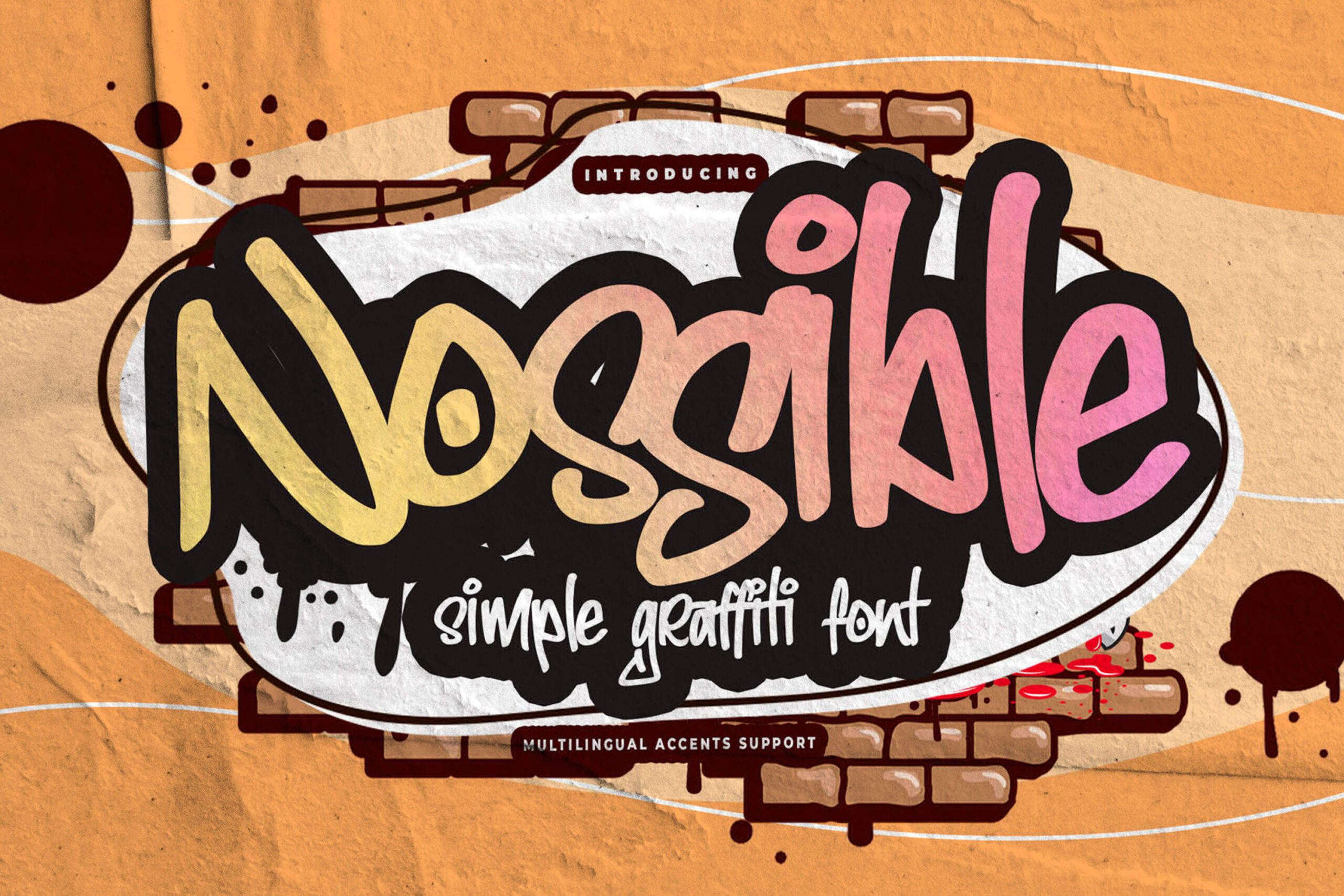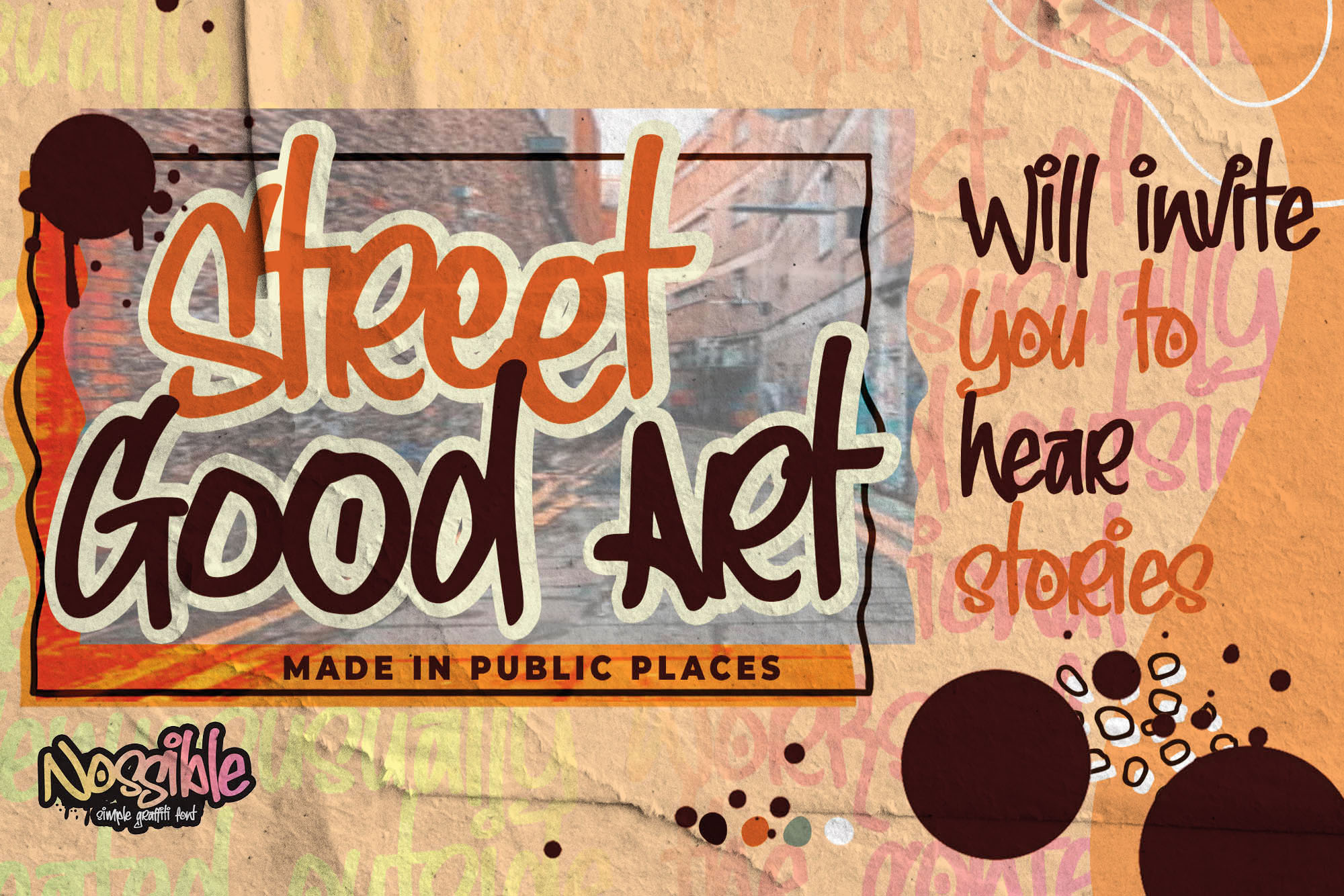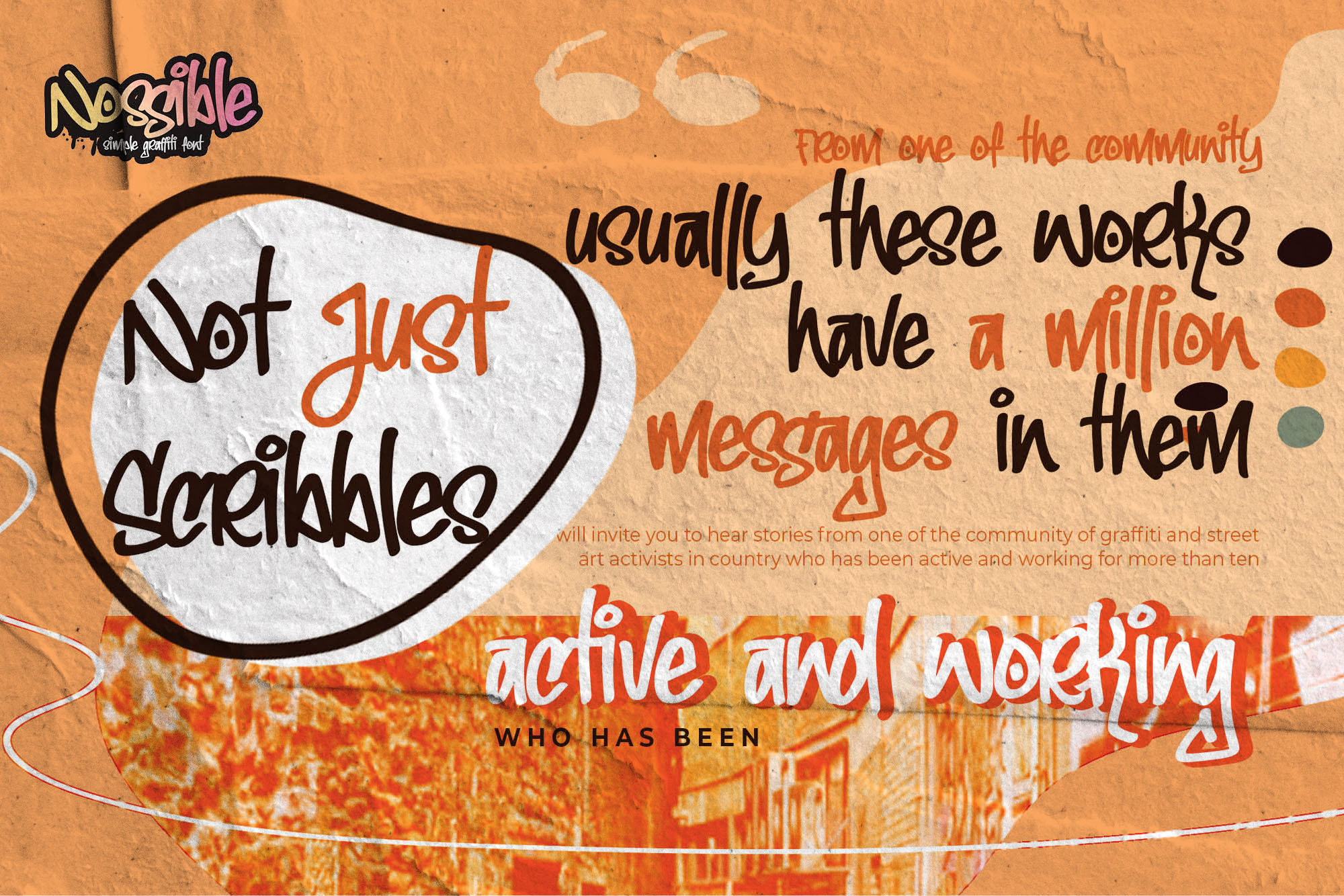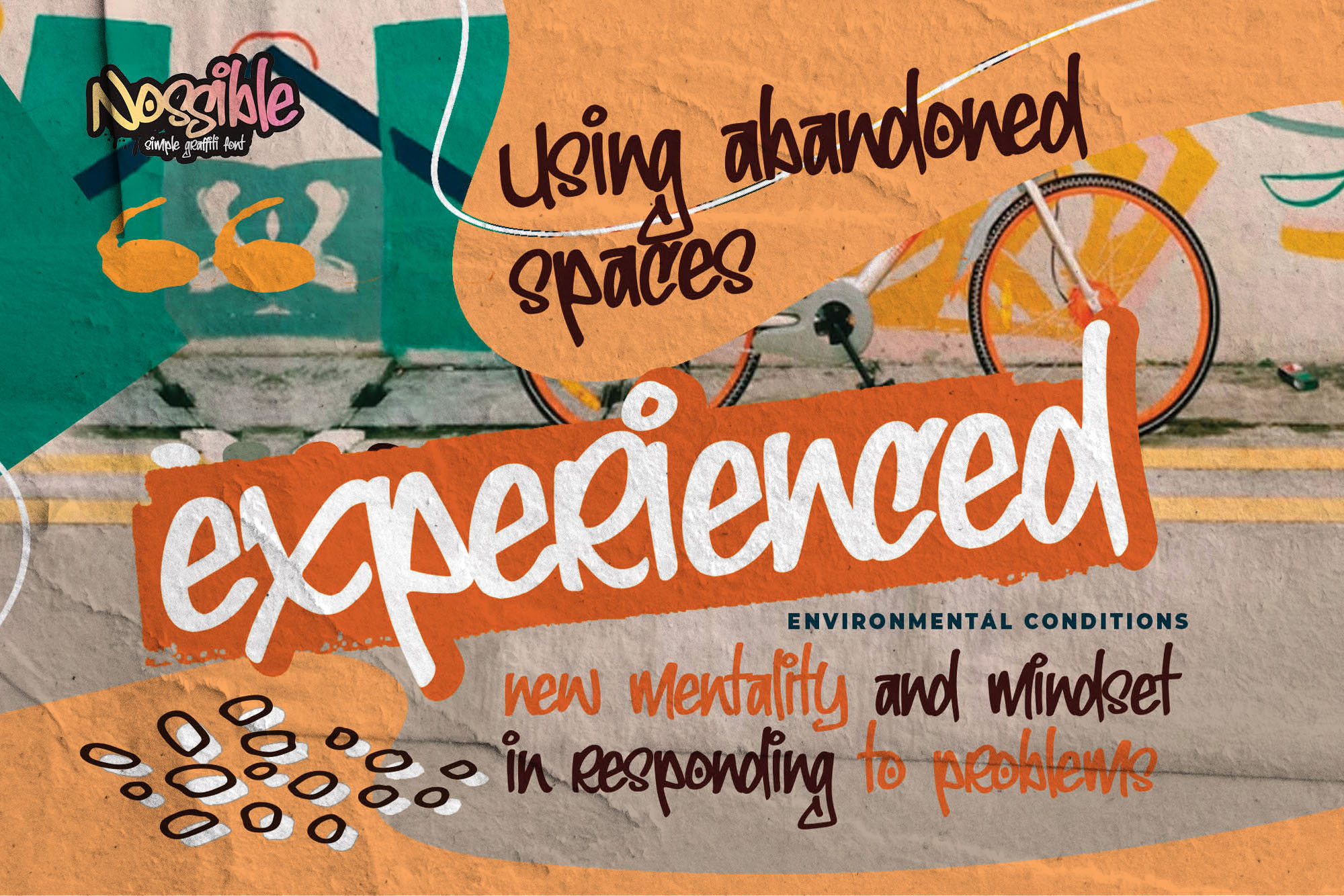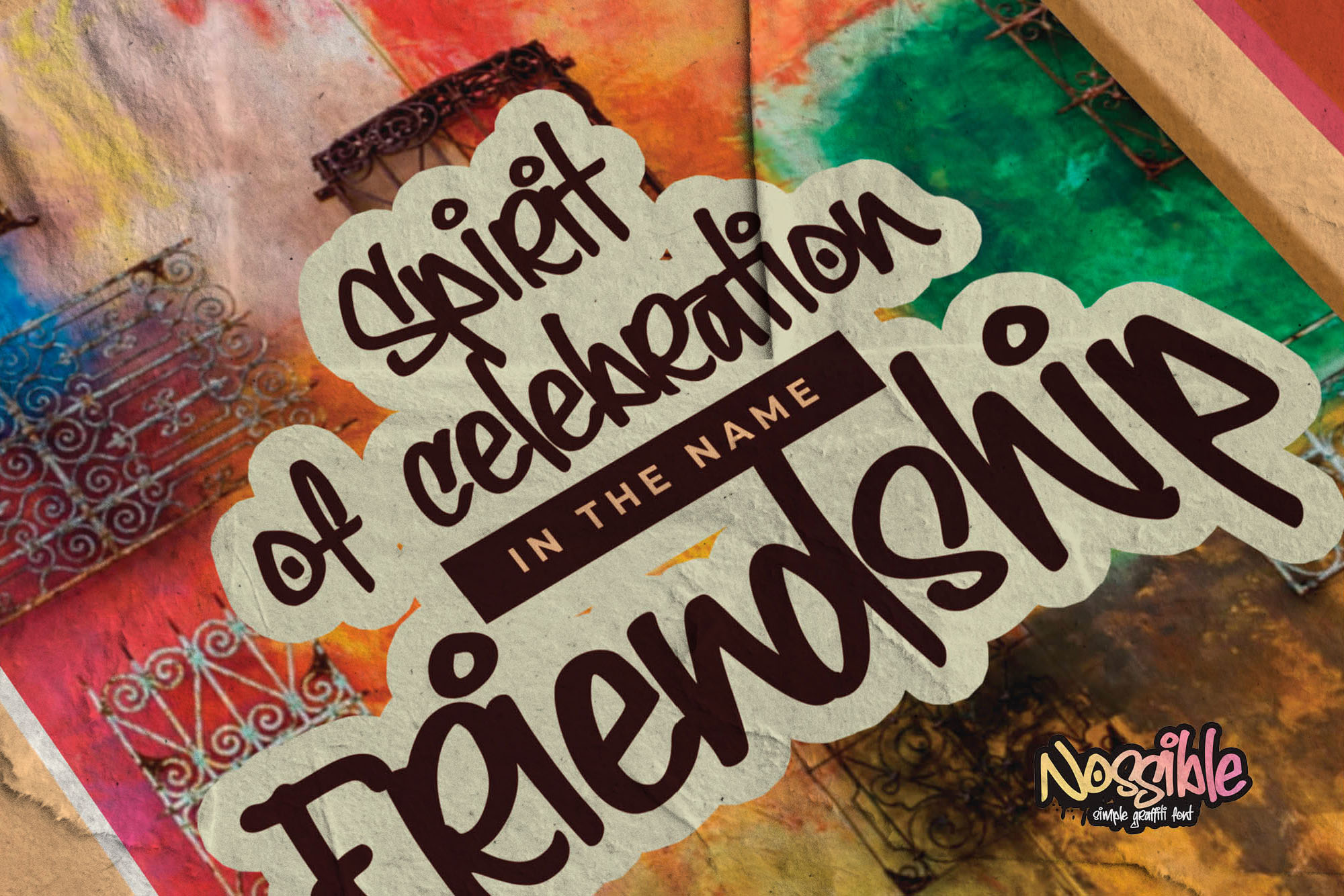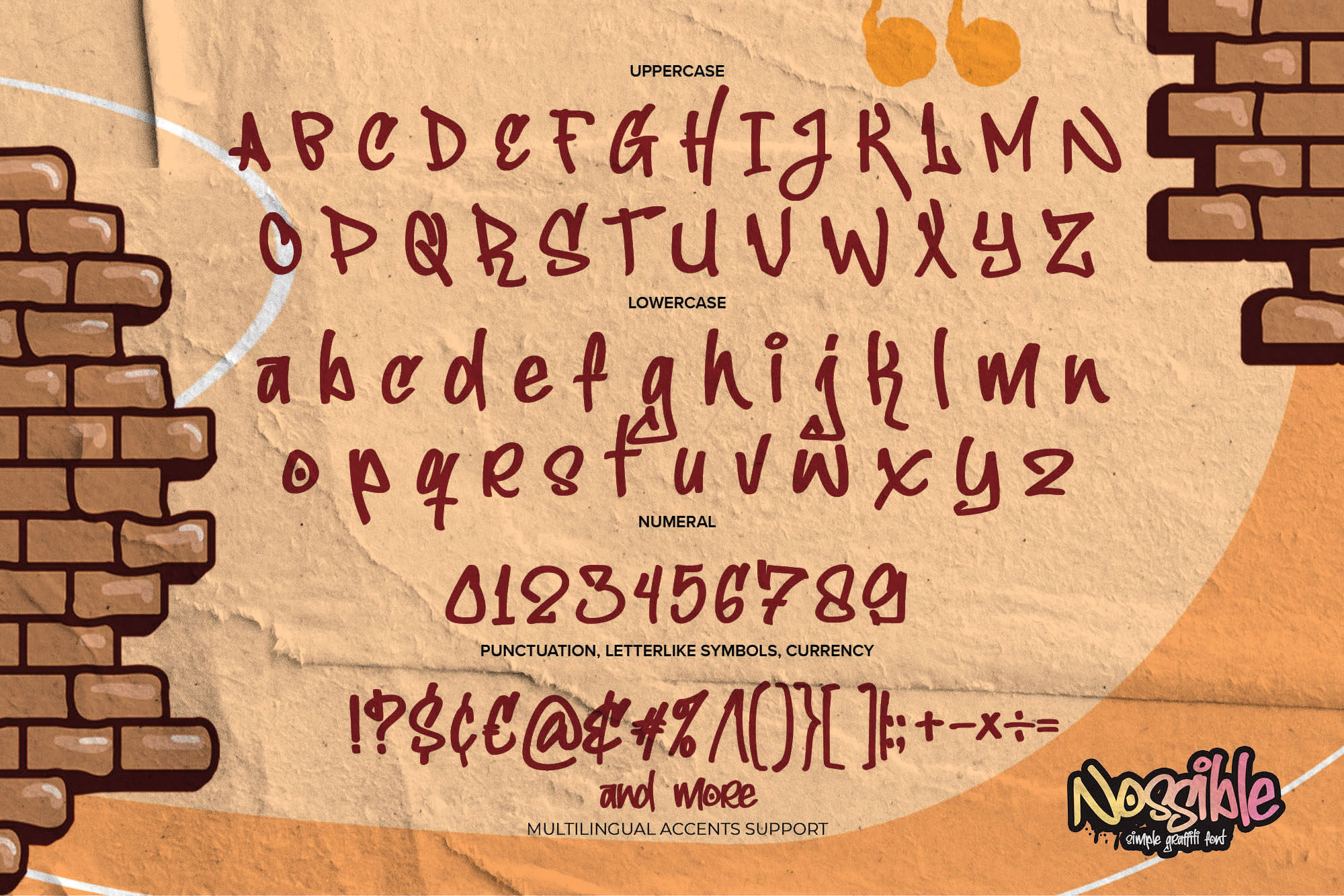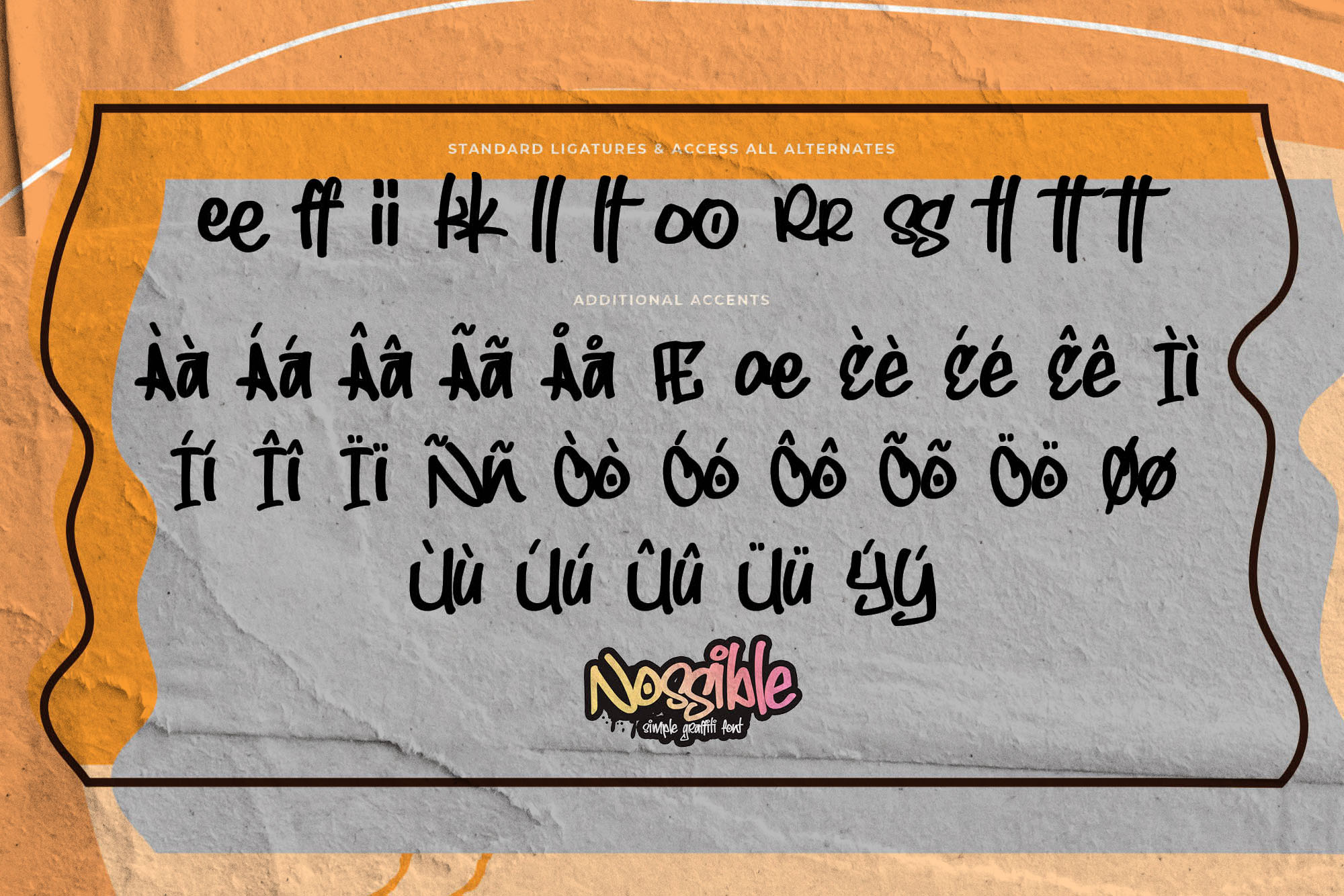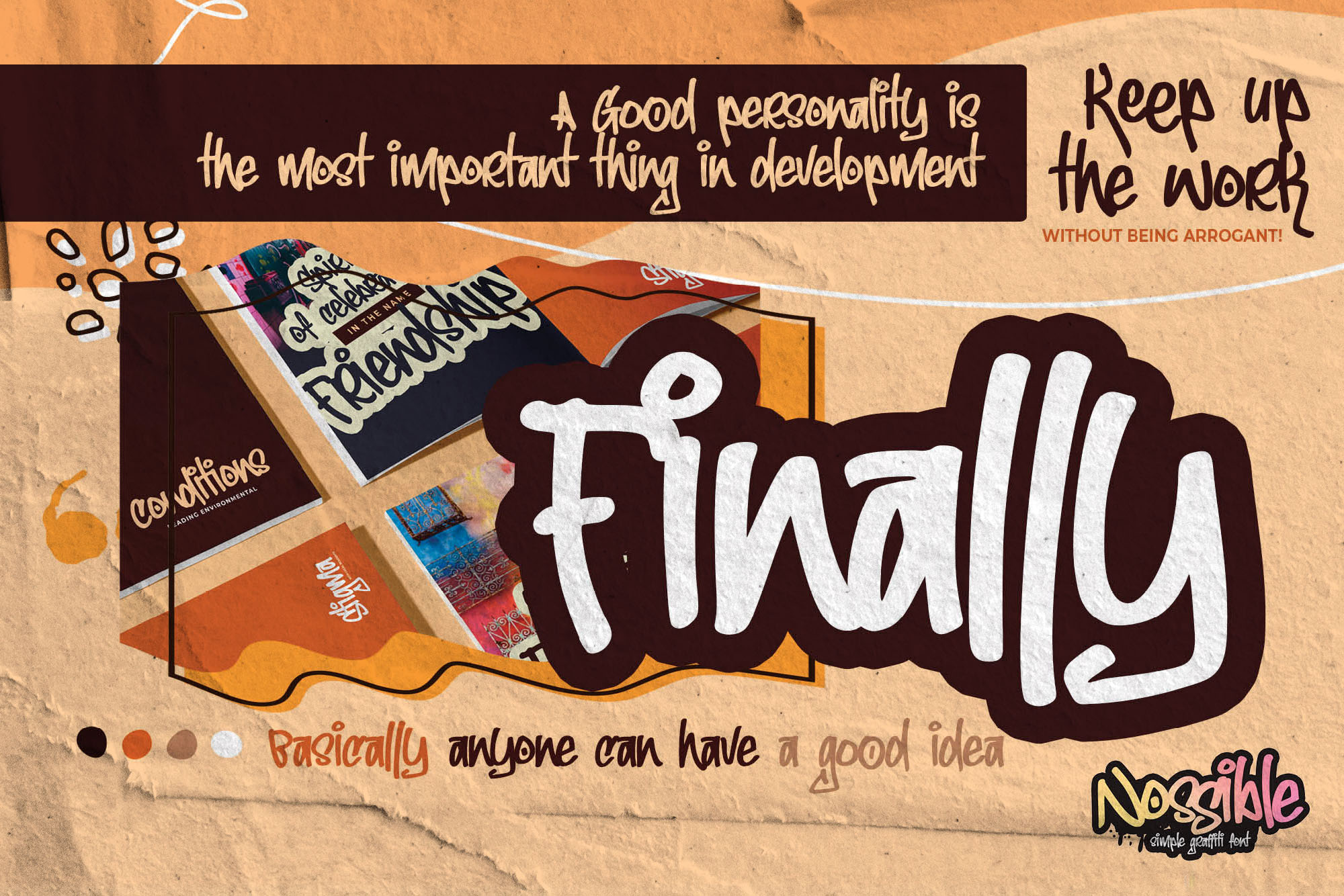
NOSSIBLE – Simple Graffiti Font, modern style and dramatic movement that is written casually and quickly.
The best for labels,poster,project , designs look modern, authentic and fun. It’s perfect for labels, quotes, posters, DIY projects, branding, packaging, greeting cards, websites, photography overlays, signs, scrapbooking, tags and so much more! That is why NOSSIBLE has a textured, and cool characteristic more natural look. You can activate Ligatures glyphs OpenType panel.